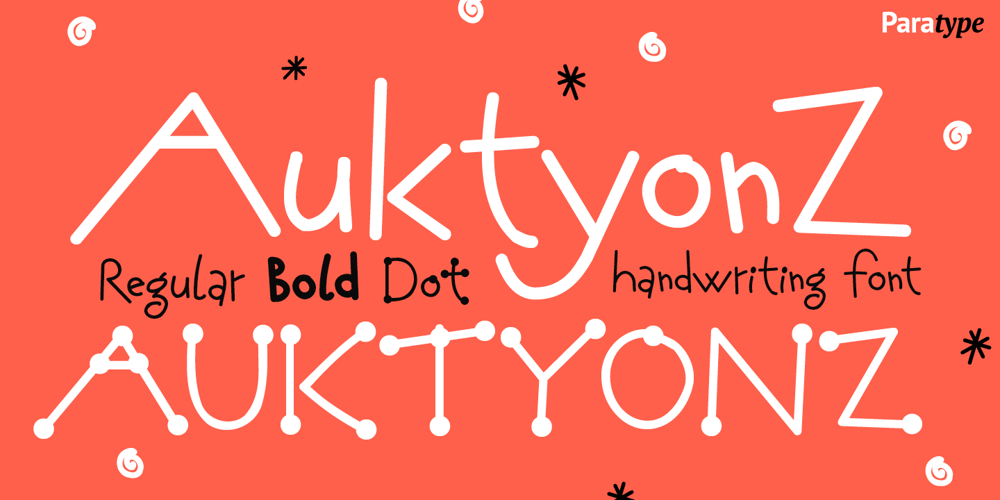
AuktyonZ Font Family was designed by Zakhar Yaschin and published by ParaType. AuktyonZ contains 3 styles and family package options. An original calligraphic typeface designed for ParaType in 2001 by Zakhar Yaschin. Based on informal handwriting, One of its distinctions is an increased size of ascenders while x-height is moderate. For use in advertising and display typography.